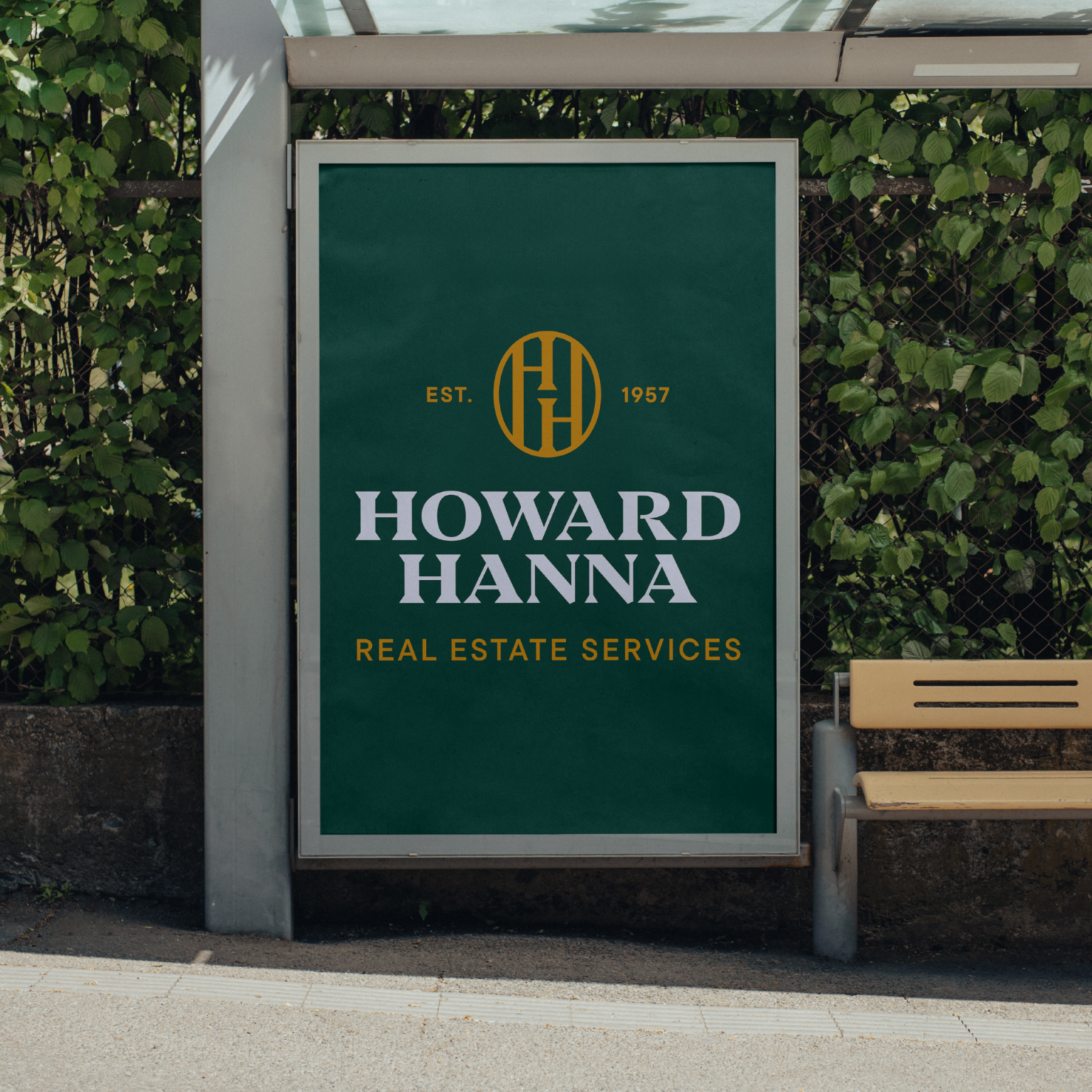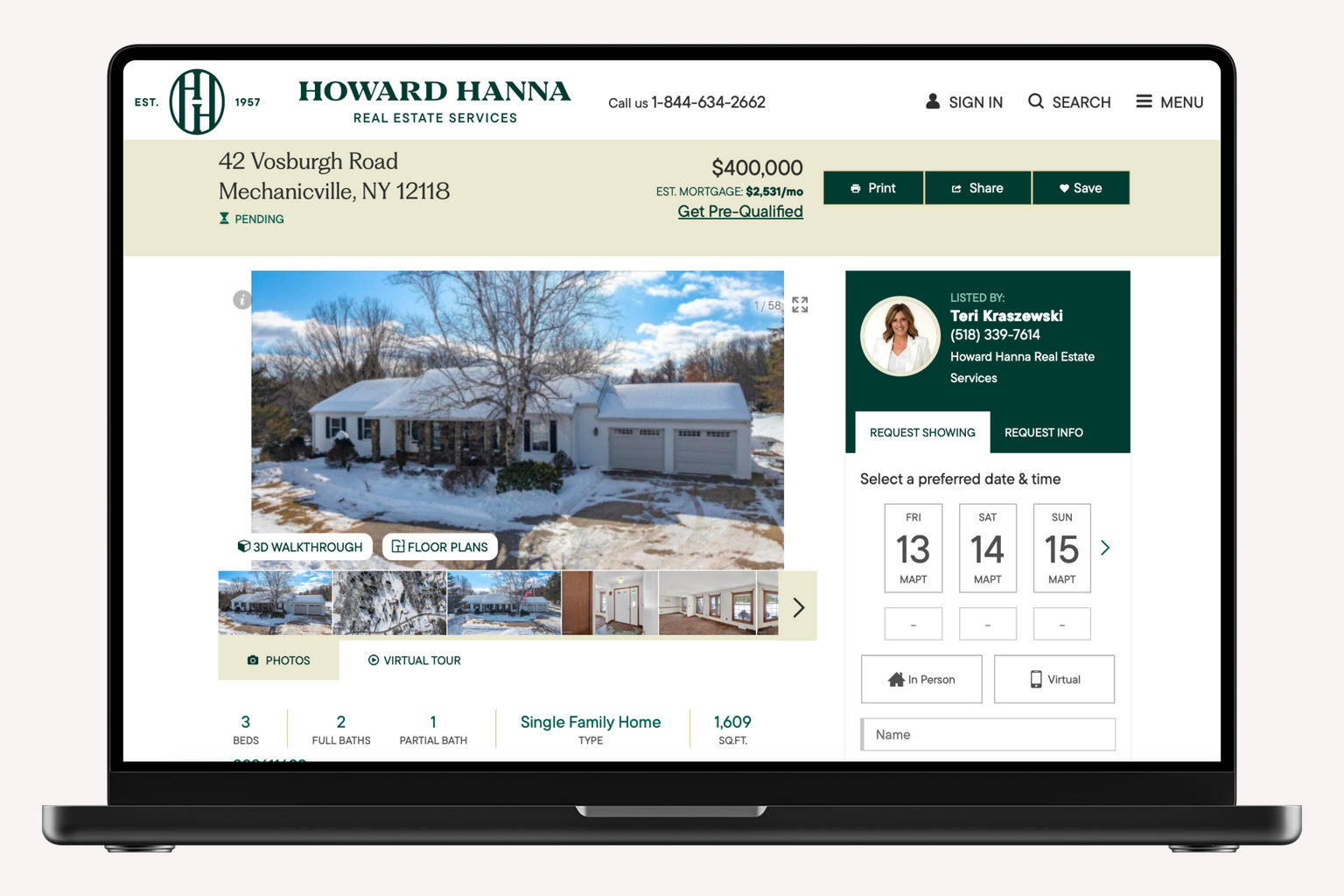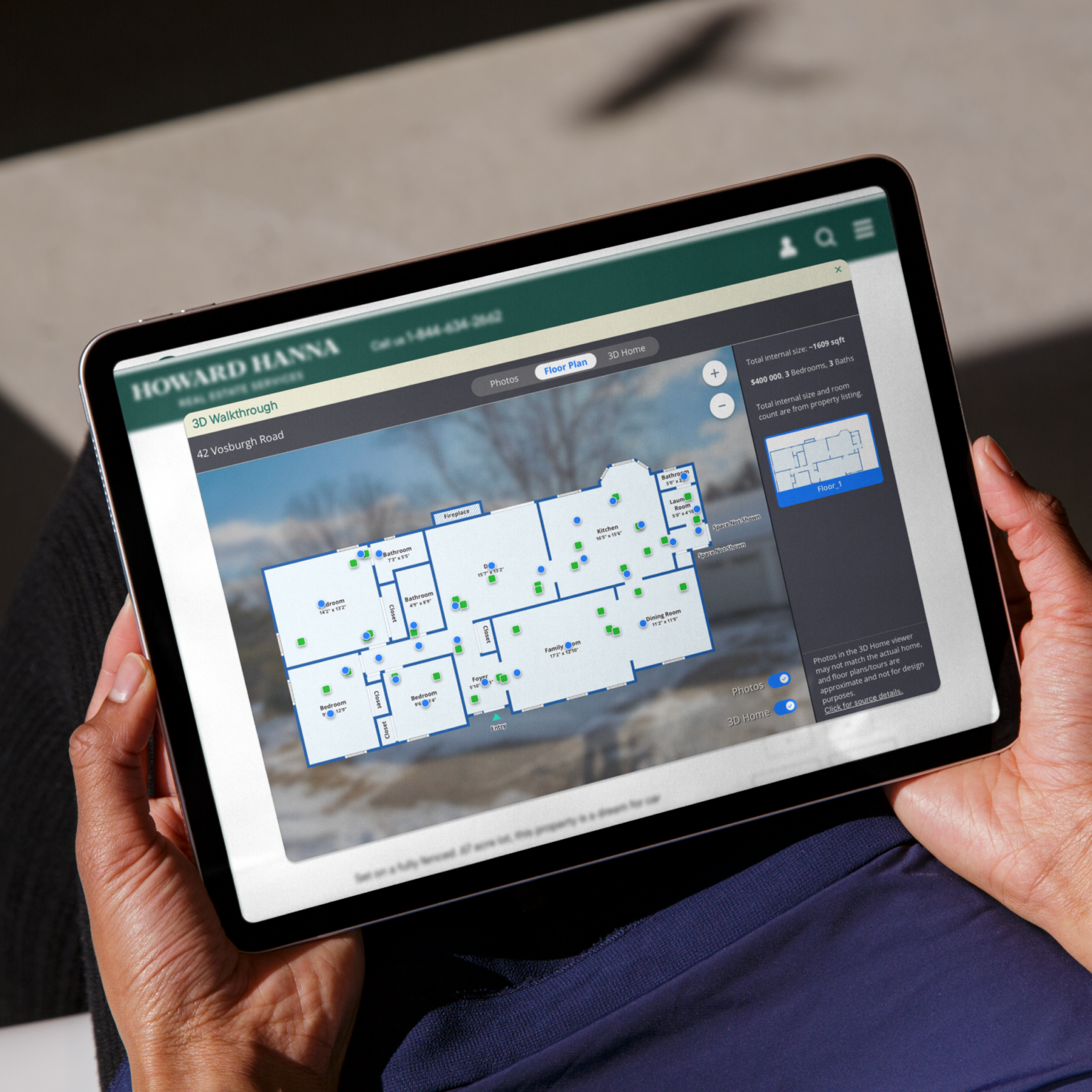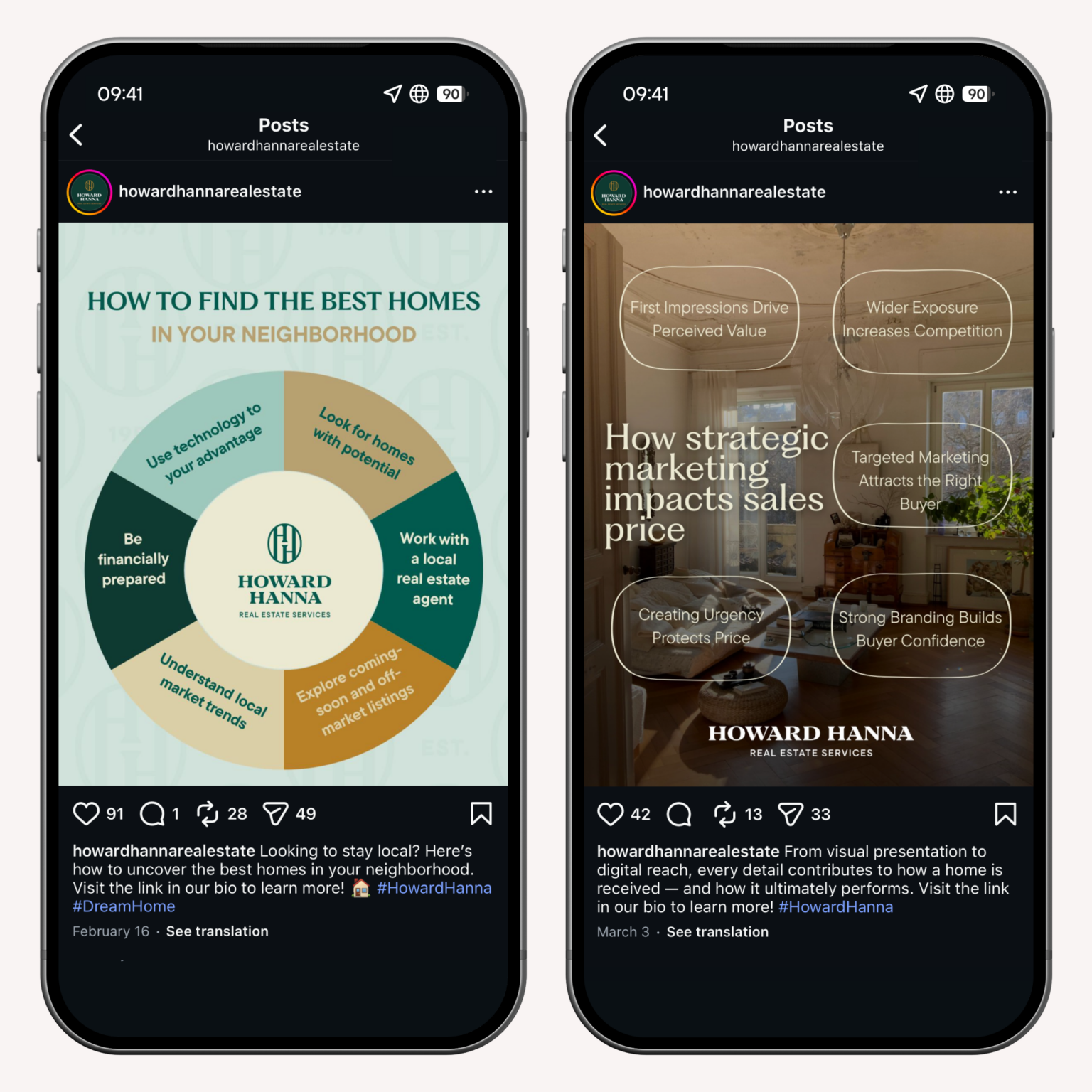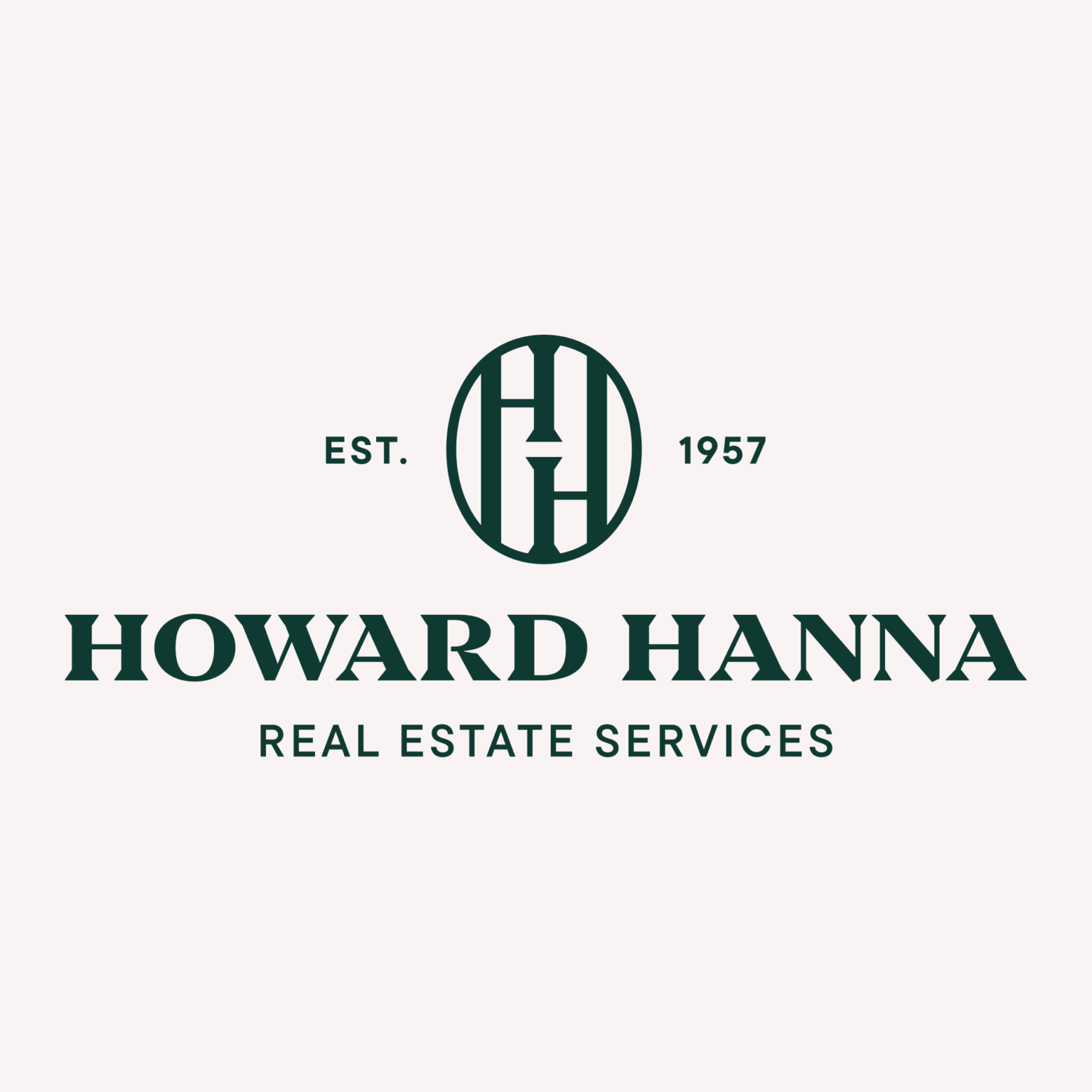
The versatile TT Commons™ Pro is part of the brand identity for Howard Hanna, the largest privately owned real estate brokerage in the US.
Howard Hanna Real Estate Services offers a full range of real estate services, including sales, mortgage, and insurance. Founded by a married couple in 1957, the company remains a family-owned business. TT Commons™ Pro highlights the company’s mission, which is built on the importance of family values, a professional approach, and a respectful attitude toward both clients and employees.